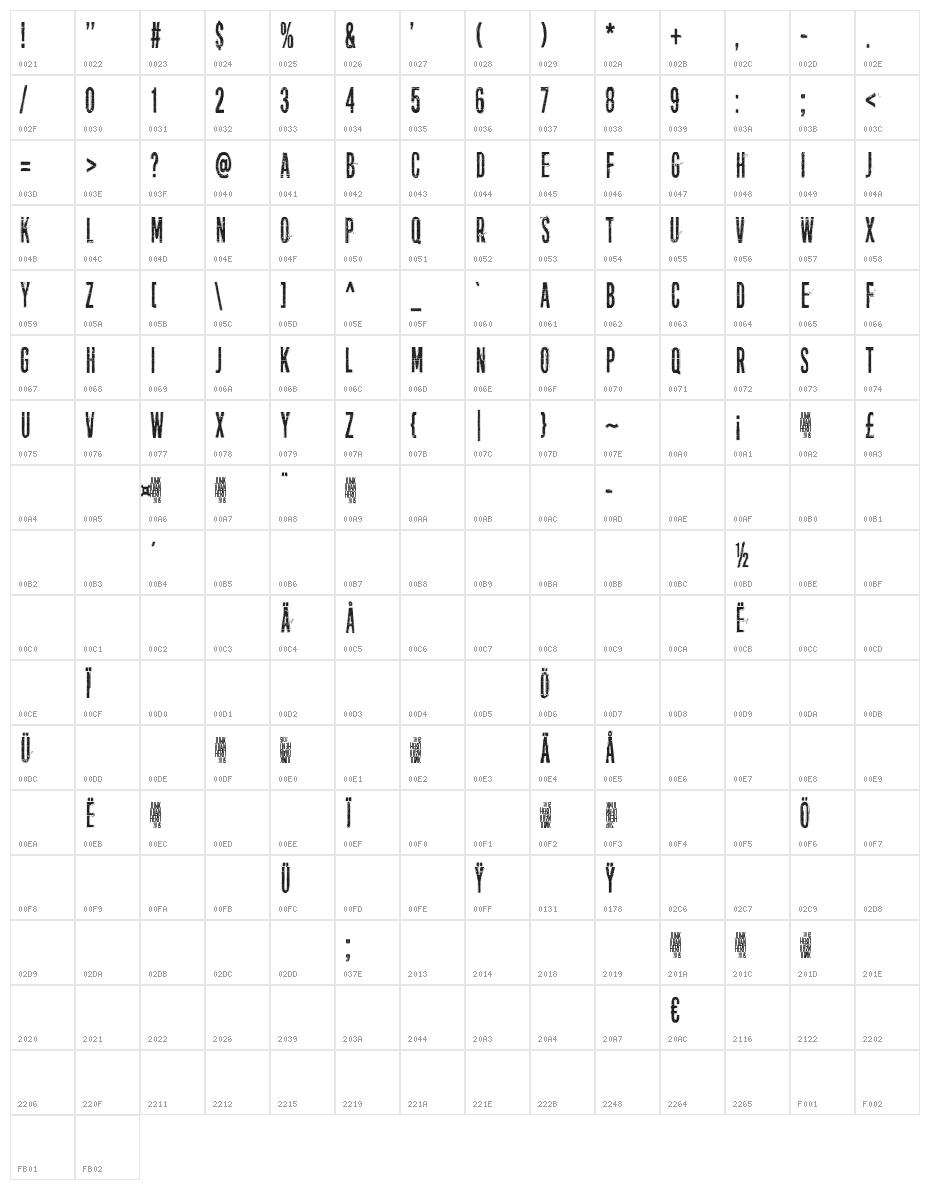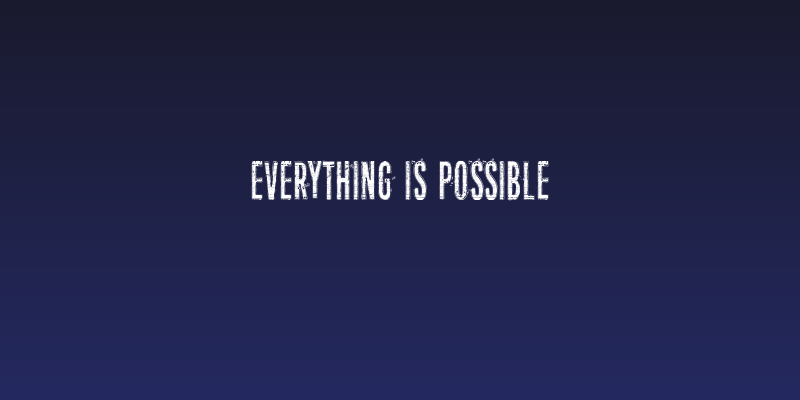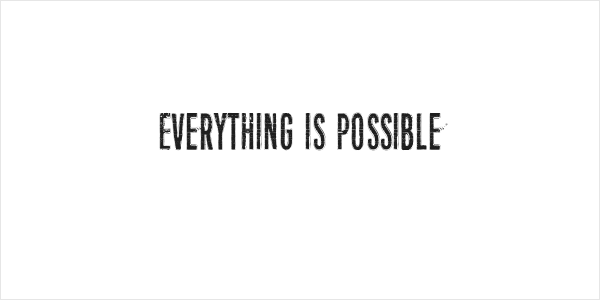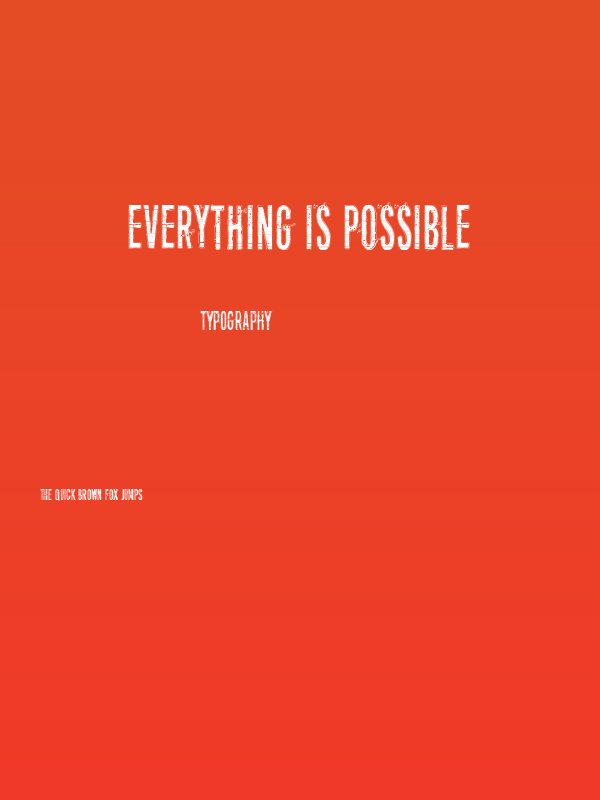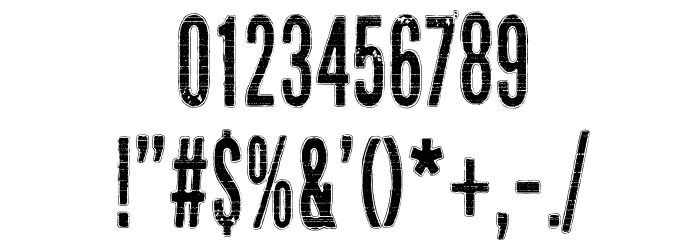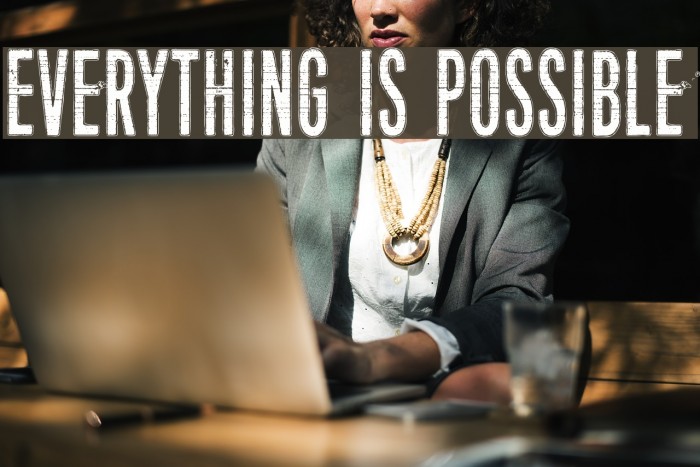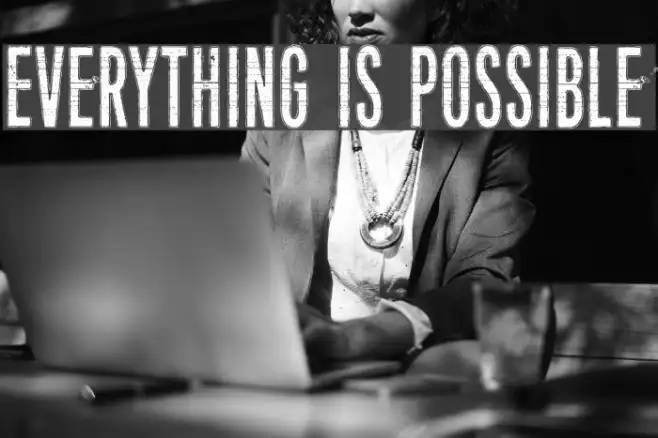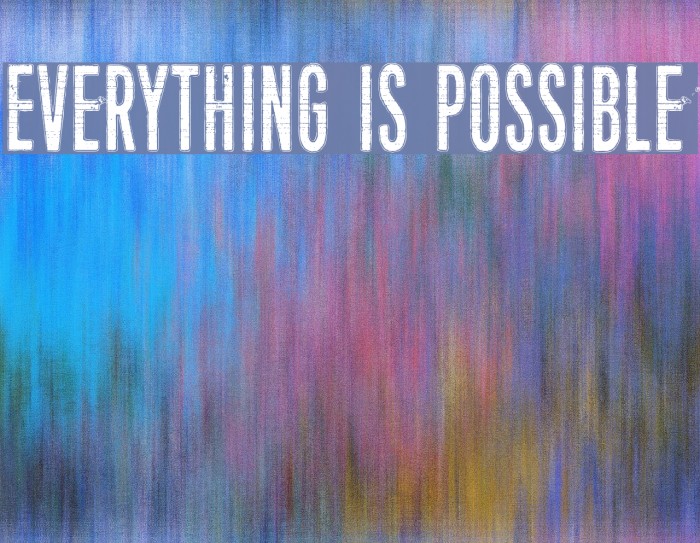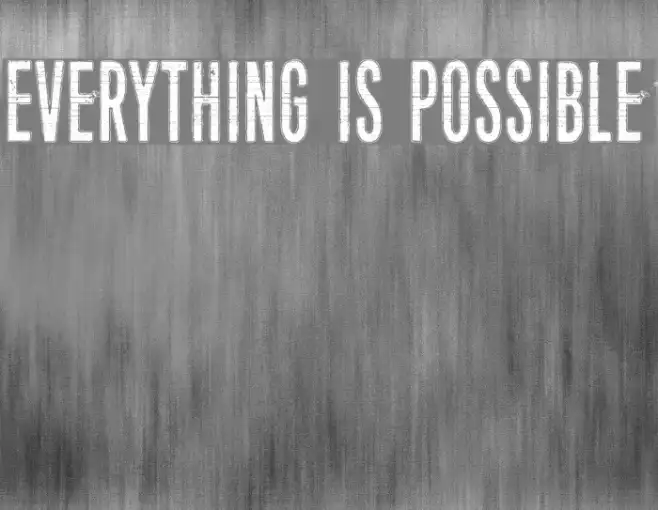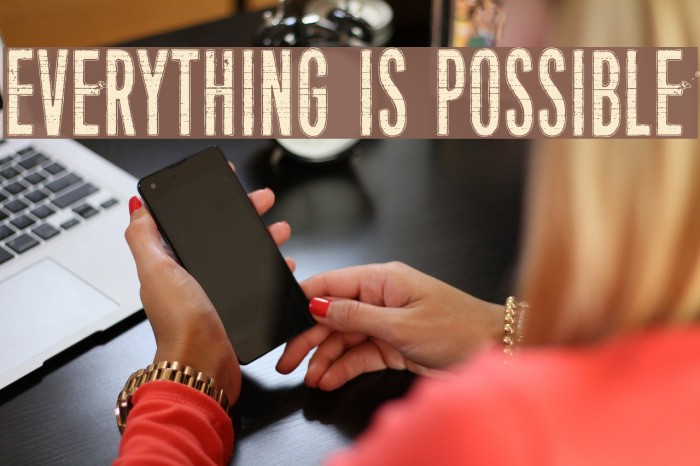
Everything is possible Font
Everything is possible Description
This font features a bold, distressed style with a textured appearance that gives it a rugged and vintage feel. The uppercase letters are prominent and impactful, making them suitable for attention-grabbing designs. The numbers and special characters maintain the same distressed look, ensuring consistency across all elements. The font's rough edges and worn-out effect suggest a handcrafted or industrial aesthetic, ideal for projects that require a strong, gritty visual impact.